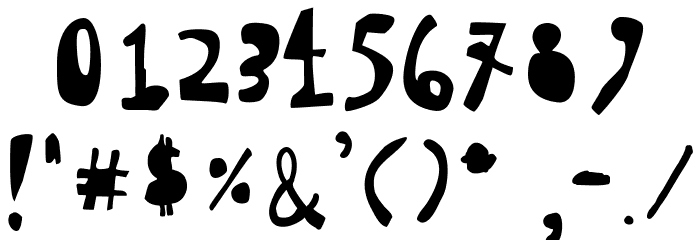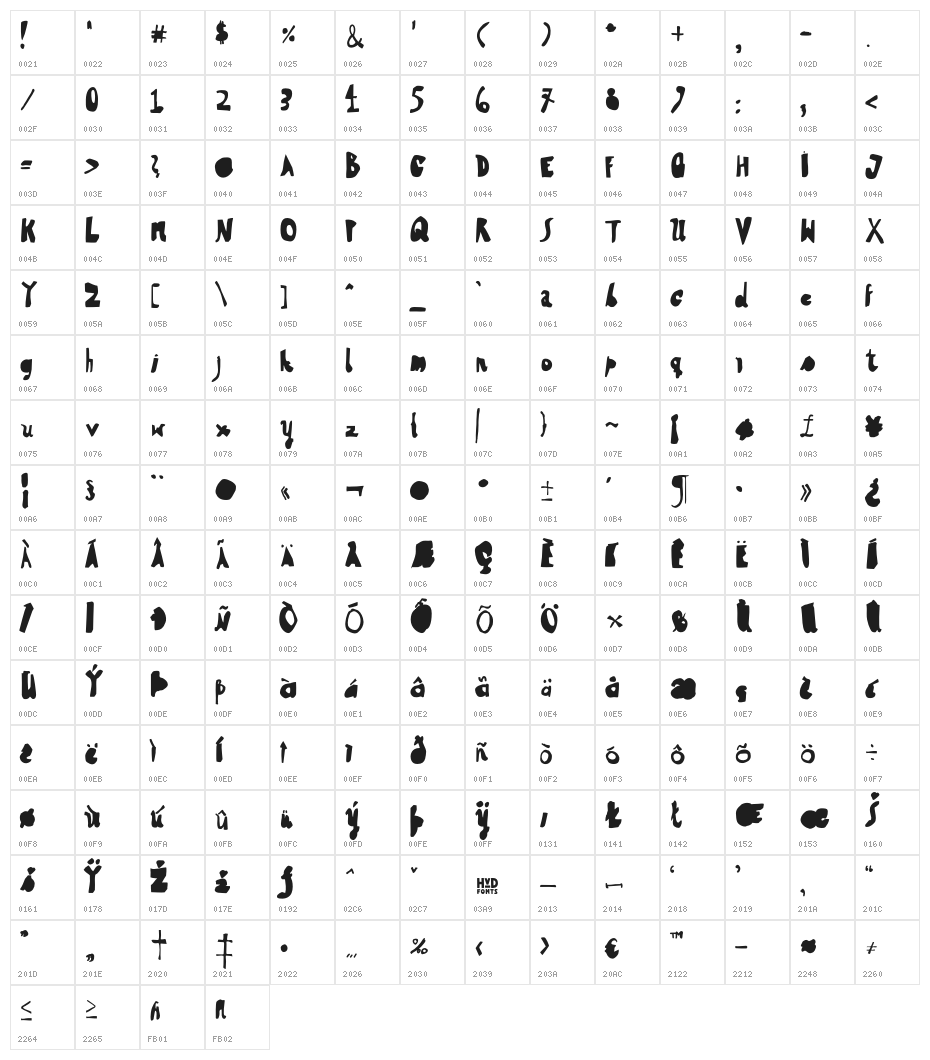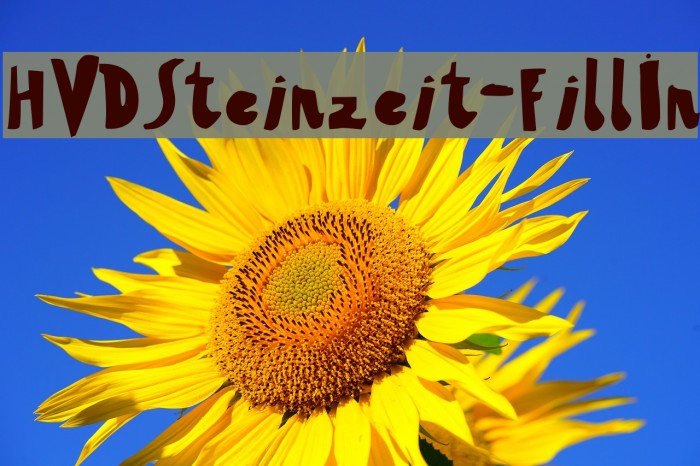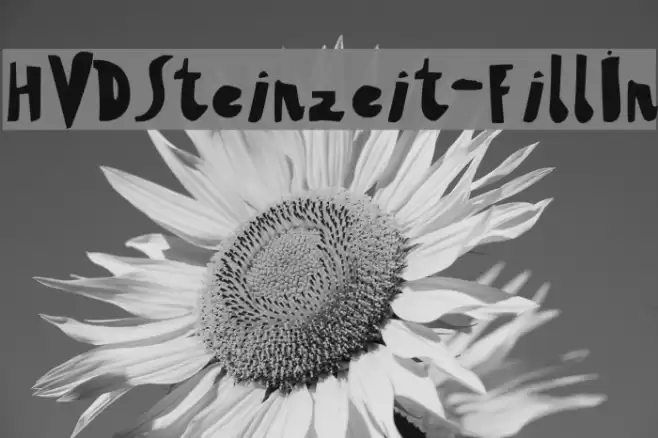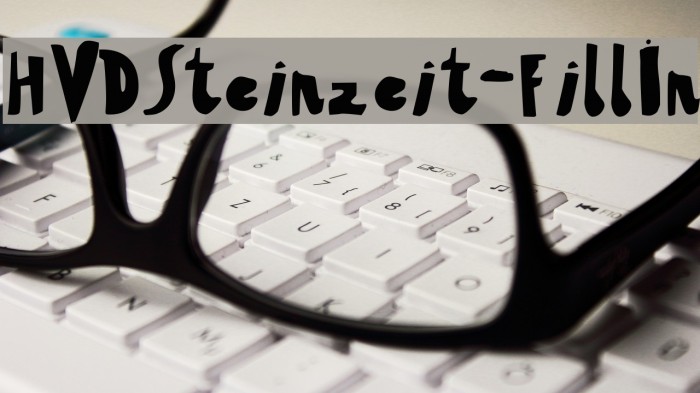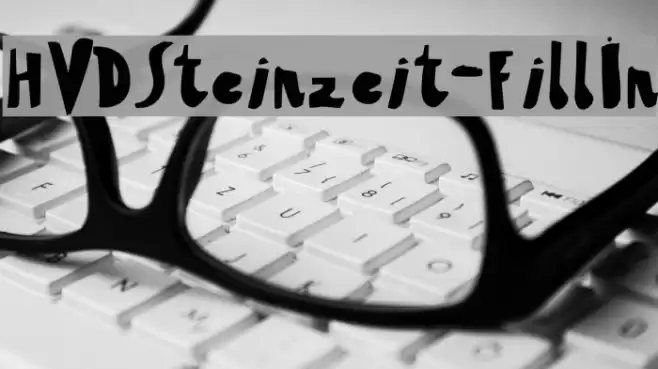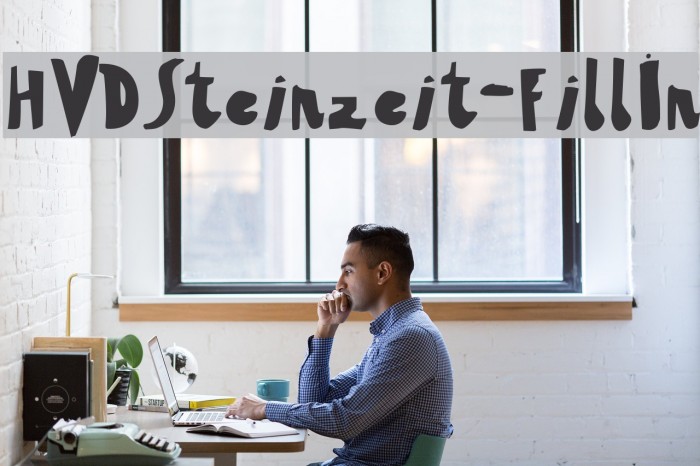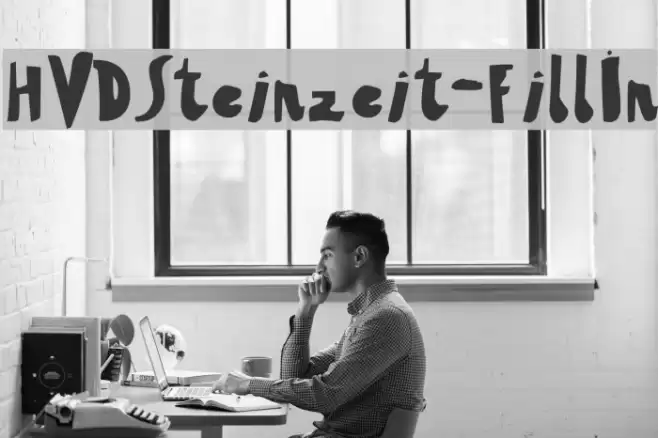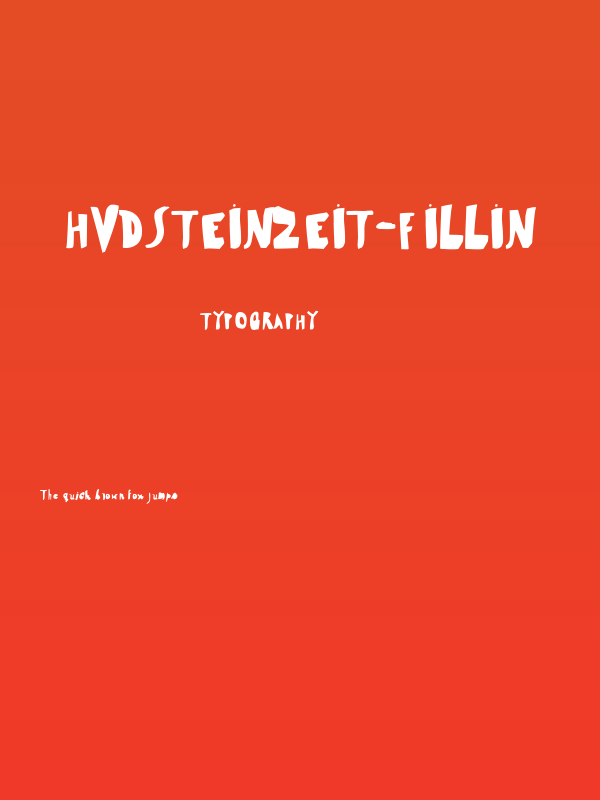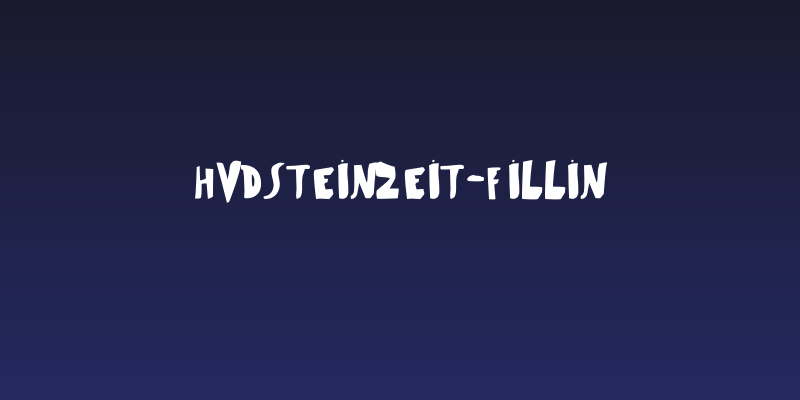
HVDSteinzeit-FillIn Font
HVDSteinzeit-FillIn Description
This font features a bold and playful design with a hand-drawn aesthetic. The characters are irregular and have a whimsical, almost cartoonish quality, making them stand out with their unique shapes and forms. The uppercase and lowercase letters maintain a consistent style, with exaggerated curves and varying stroke widths that give a dynamic and lively appearance. The numbers and special characters follow the same playful theme, adding to the font's overall charm. This font is ideal for projects that require a fun and informal touch, such as children's books, posters, or creative branding.
| Overall Style | Playful, Whimsical, Hand-drawn |
| Proposed Projects | Ideal for children's books, playful posters, creative branding, and informal invitations. |